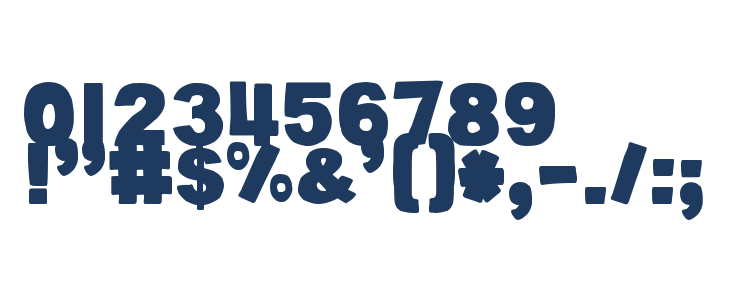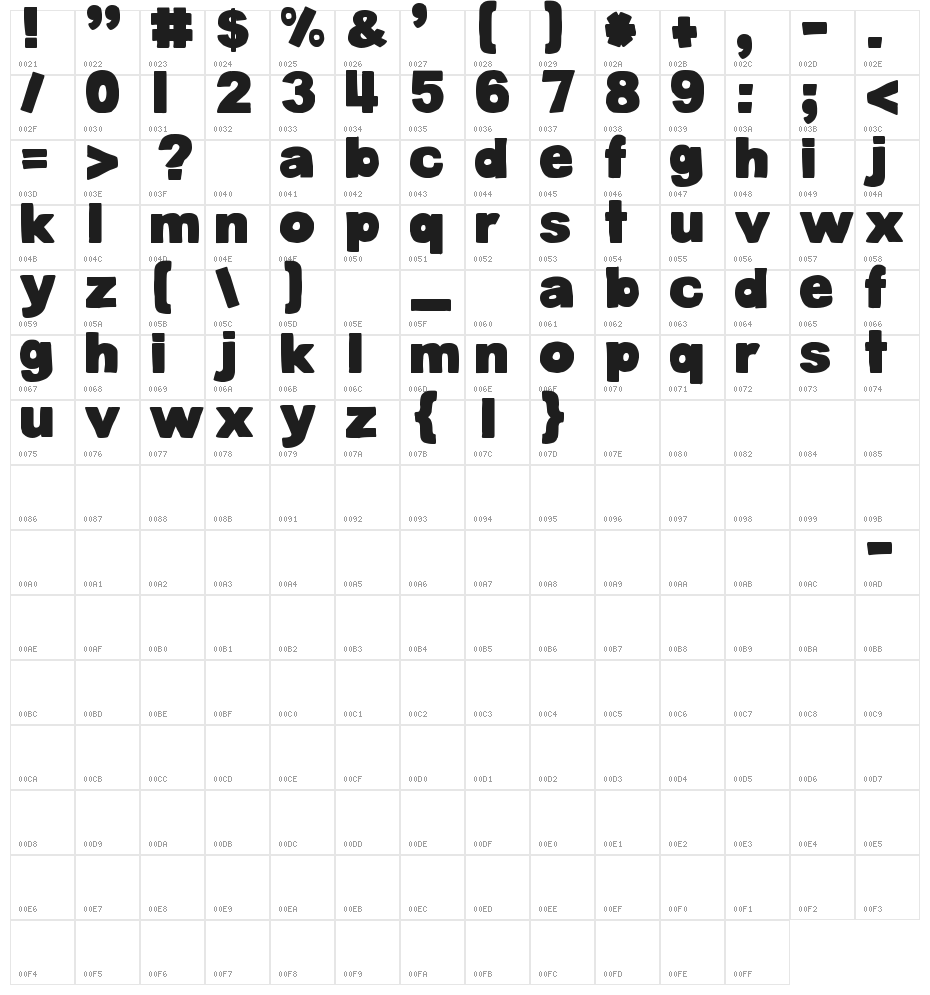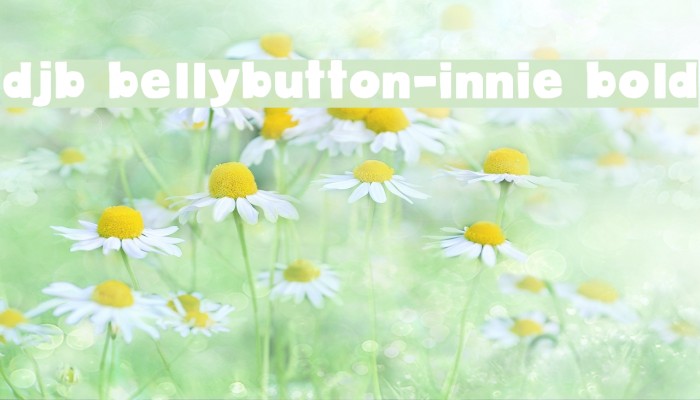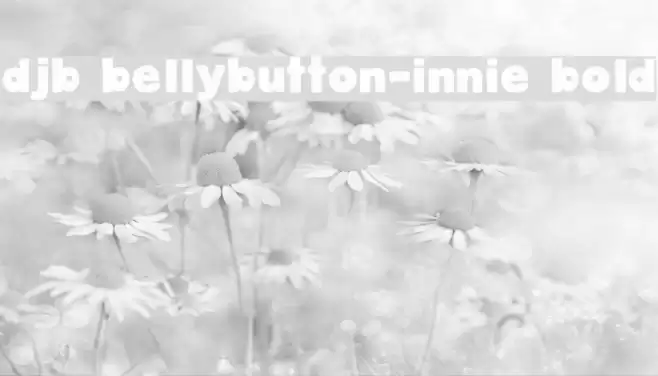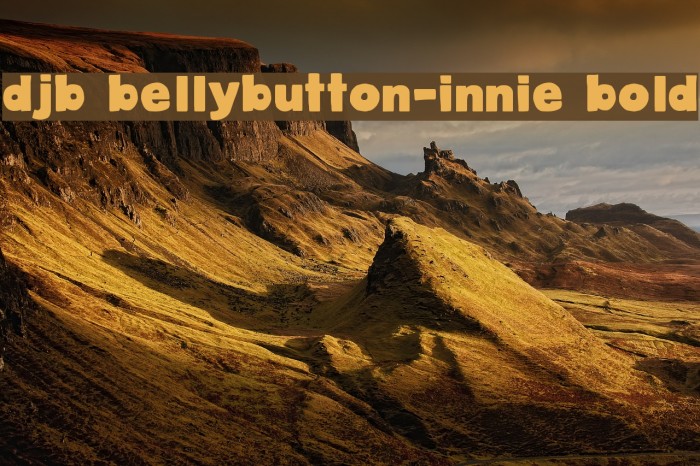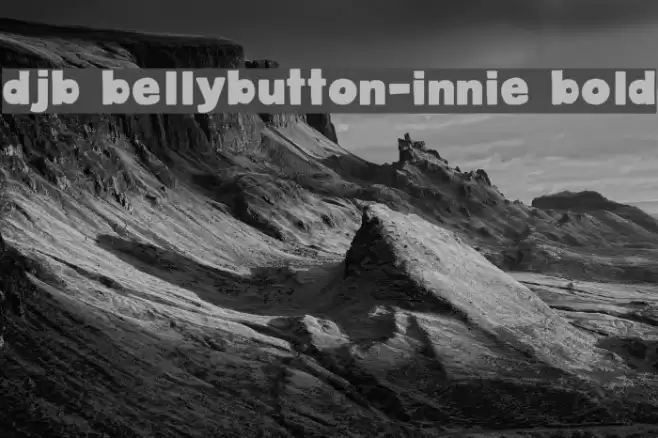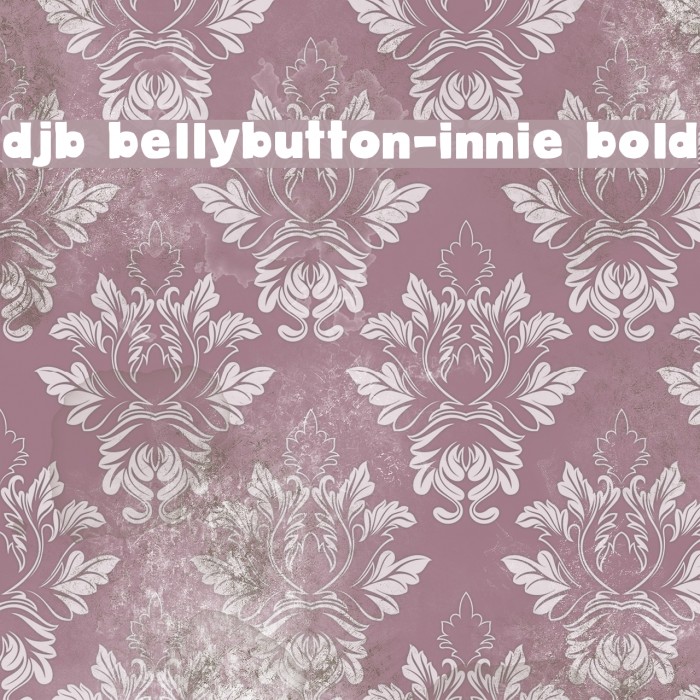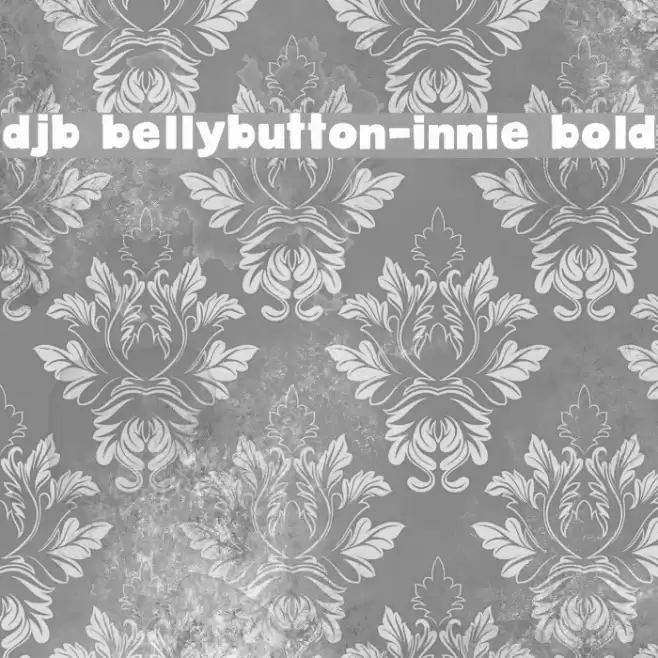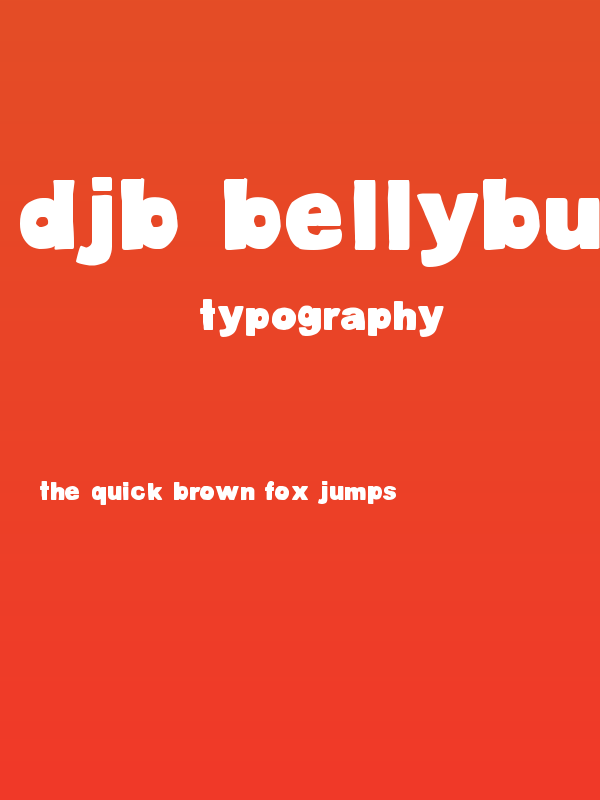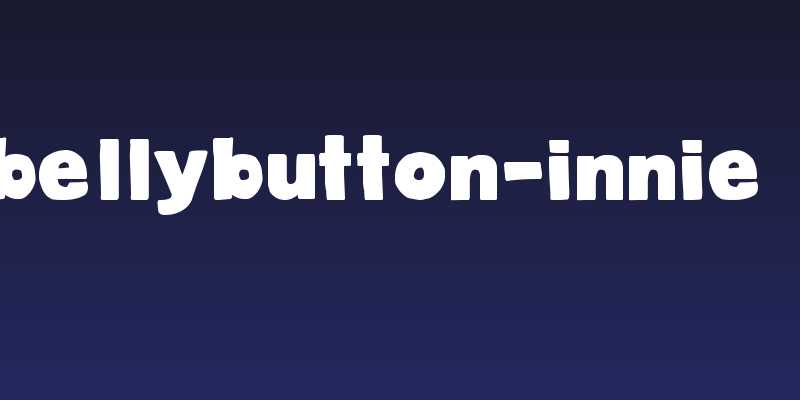
DJB BellyButton-Innie Bold Font
DJB BellyButton-Innie Bold Description
| Overall Style | Playful, Informal |
| Proposed Projects | Ideal for children's books, playful branding, posters, and any design needing a fun, informal touch. |